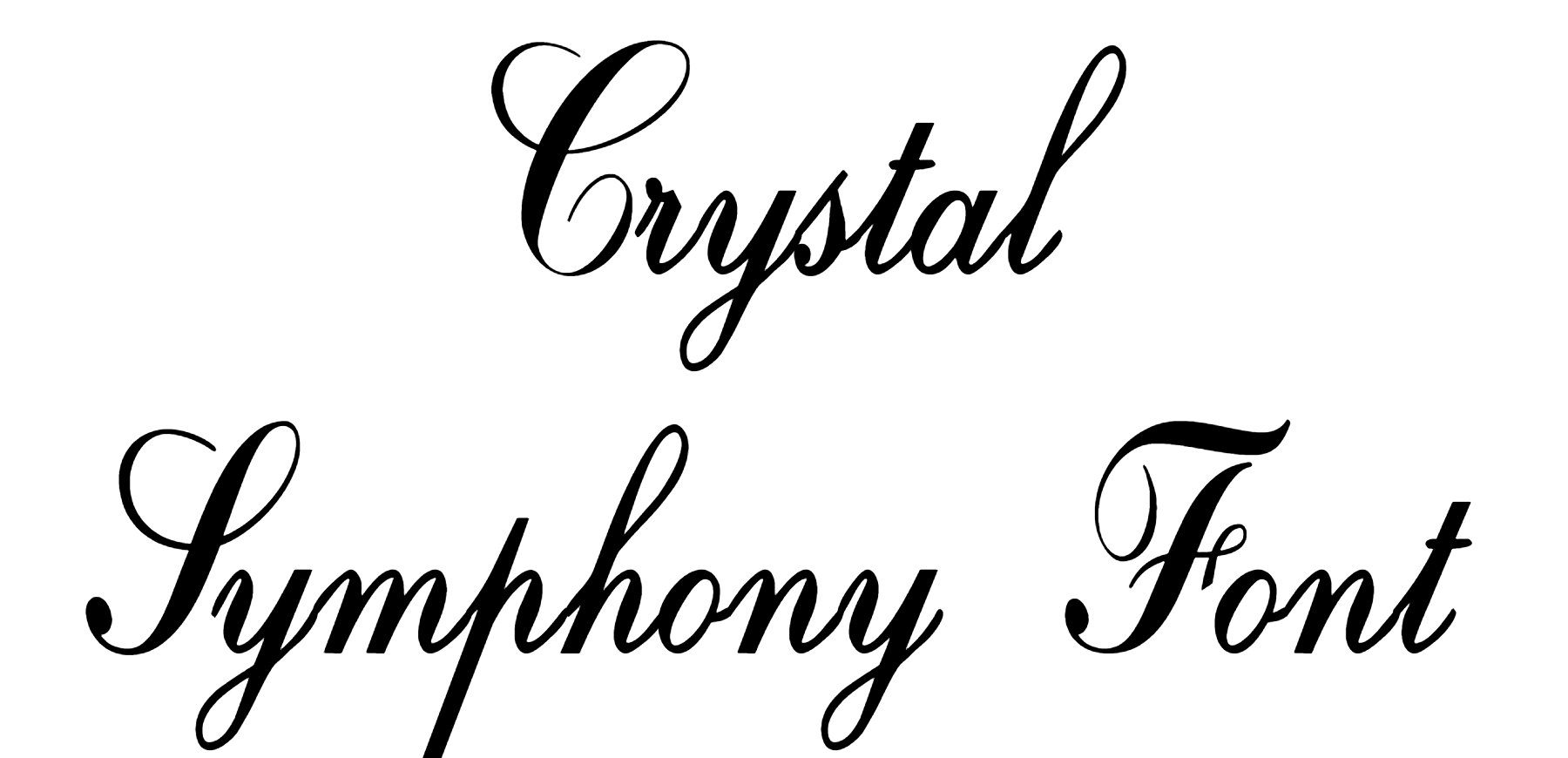
Guilhem Greco designed Crystal Symphony, an elegant, fluid handwritten script font, and released it through his independent studio, Herofonts™, in April 2017. He carefully structured it to balance the raw authenticity of manual handwriting with the sweeping grace of artistic calligraphy.
Crystal Symphony
Crystal Symphony is a calligraphy font created by Guilhem Greco and released through Guilhem Greco / Herofonts (2017).
- Designer: Guilhem Greco
- Publisher: Guilhem Greco / Herofonts